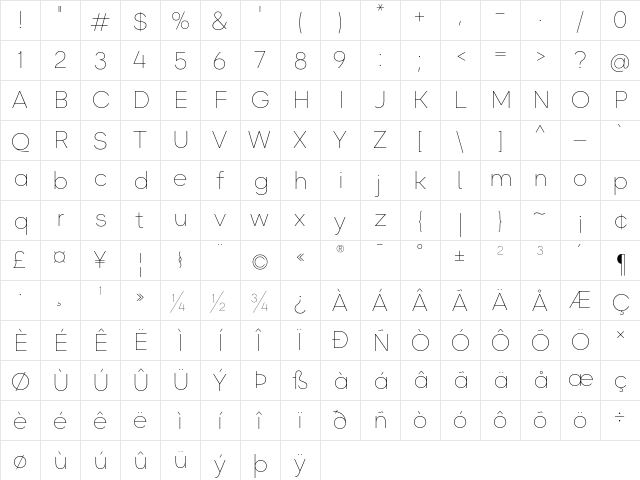
Okta ExtraLight
| Foundry | Groteskly Yours Foundry |
| Designer | Eugene Tantsurin |
Design Context for Okta Typeface
Okta is a composed and adaptable typeface that performs quietly and consistently across a wide range of design contexts. The delicate stroke weight brings airiness and refinement to layouts.